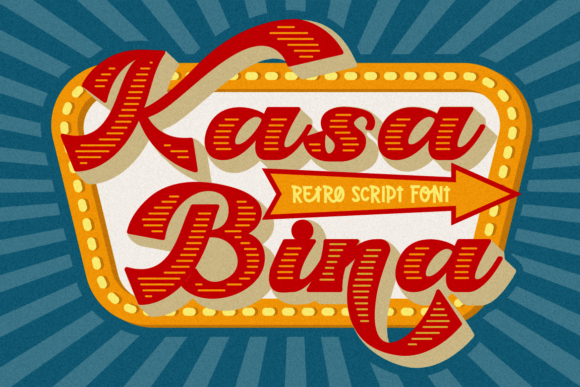
Introducing Kasabina Font, the ultimate choice for all your design needs! This groovy script typeface, created by putracetol, is a true show-stopper that effortlessly captures the essence of boldness and retro style. With its eye-catching appeal, Kasabina Font will surely elevate your creative projects to new heights.
What sets Kasabina Font apart from the rest is its extensive range of alternative characters, giving you endless design possibilities. But that's not all! This font also comes with additional layer font support, including line, outline, and shadow options. Imagine the stunning effects and versatile combinations you can create with these features!
Whether you're working on logos, packaging, invitations, greeting cards, posters, magazines, titles, business branding, or designs with a retro or vintage theme, Kasabina Font is the perfect choice. Its bold retro aesthetic adds a touch of nostalgia and timeless appeal to any project.
But wait, there's more! Kasabina Font is not just a one-trick pony. It can be used both independently and in conjunction with its layer variations, giving you even more design opportunities. The possibilities are truly endless.
With its captivating and versatile nature, Kasabina Font is an excellent resource for creating stylish and attention-grabbing visuals. It's like having a secret weapon in your design arsenal. Stand out from the crowd and make a lasting impression with this unique and powerful font.